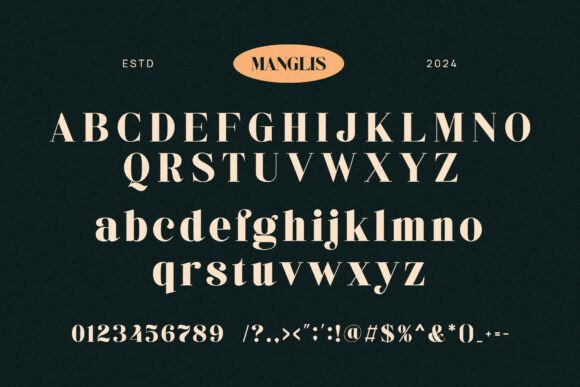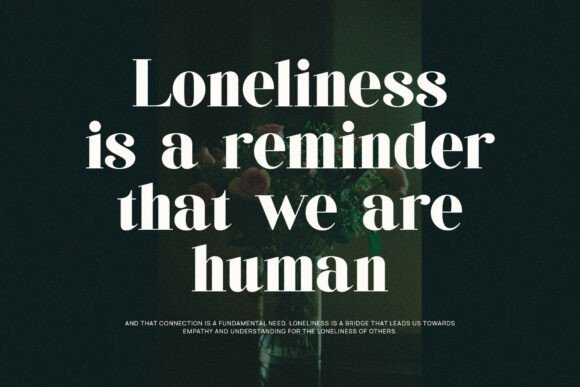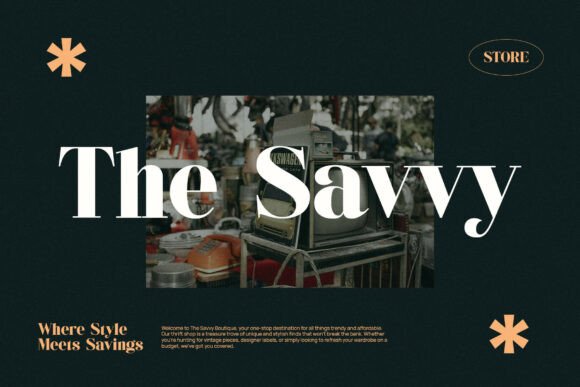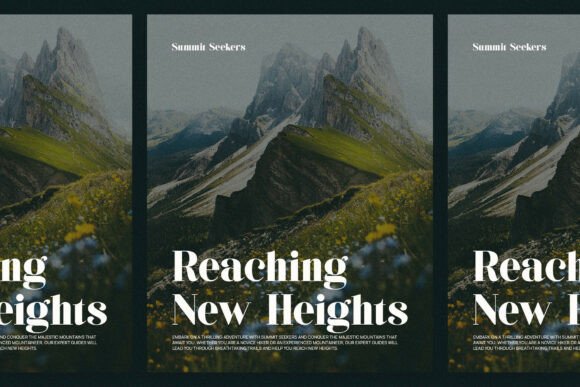
Introduction to Manglis Font
Manglis is a stylish, luxurious serif font that exudes sophistication and timeless elegance.
With refined curves and sharp details, itโs ideal for high-end branding, editorials, and packaging The classic structure paired with modern flair creates a distinguished presence that elevates any visual presentation with grace.
Key Features of Manglis Font